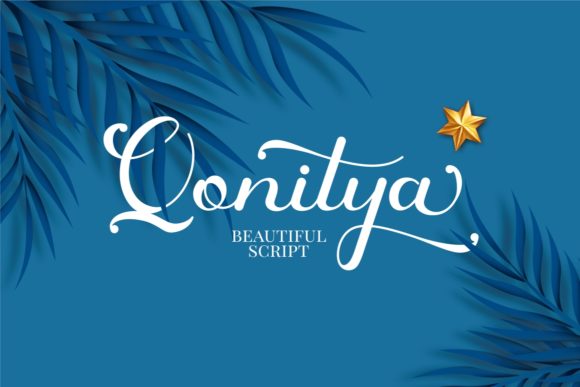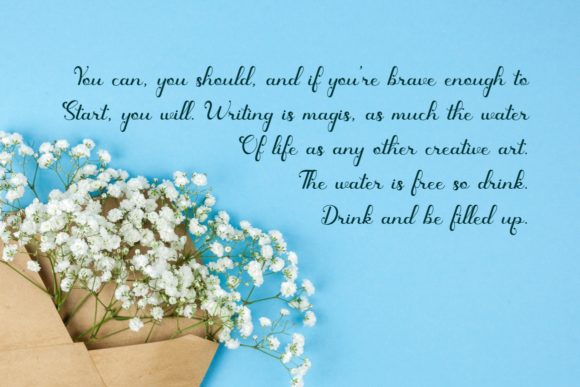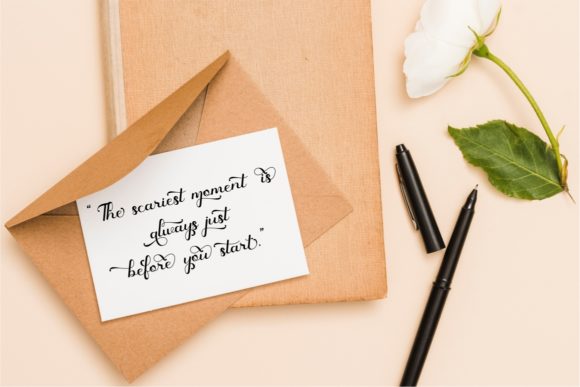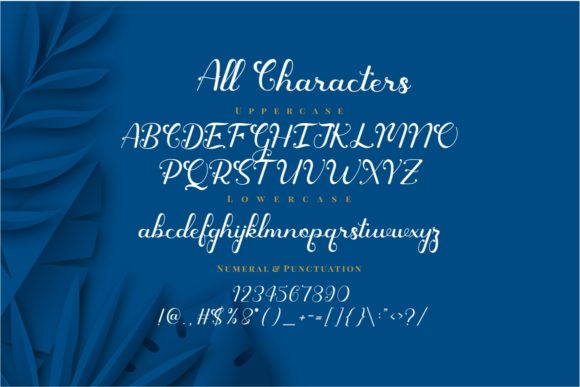
Qonitya Font
Introducing Qonitya, a beautiful script font with a lot of alternate characters and beautiful loops, just perfect for your new projects.
Qonitya is perfect for lettering compositions, wedding invitations, fashion projects, magazines typography, cards, posters and more.